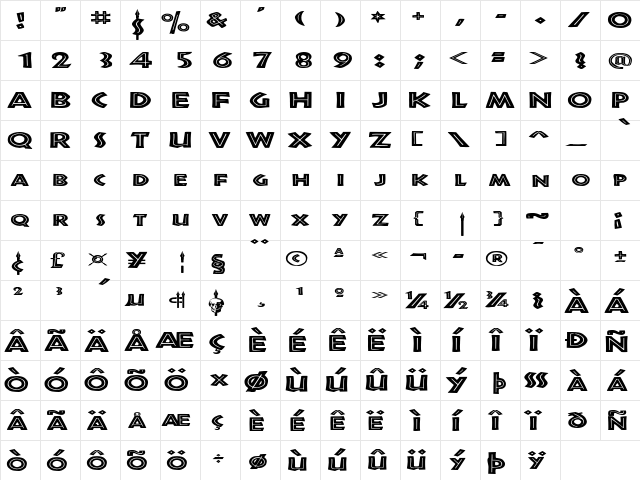
ShakazuleExtended Regular
Design Context for ShakazuleExtended Typeface
ShakazuleExtended is a composed and adaptable typeface that performs quietly and consistently across a wide range of design contexts.